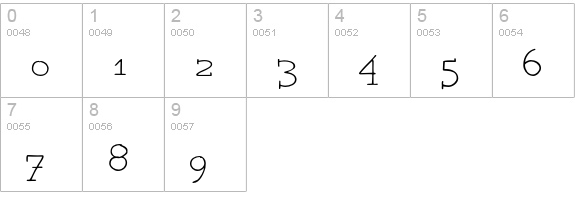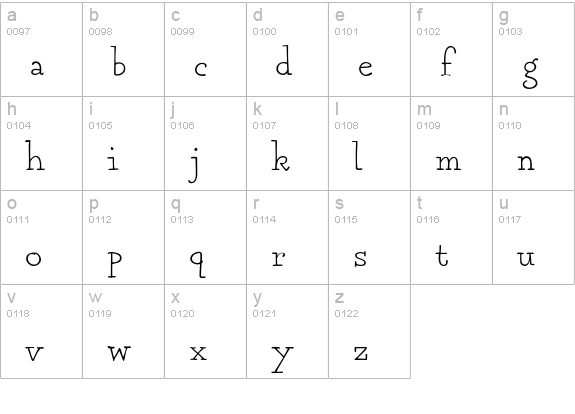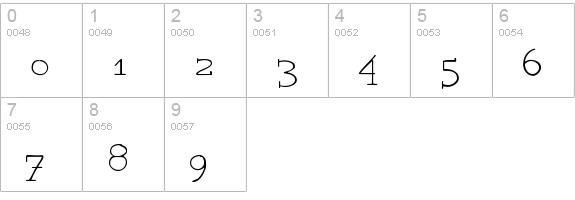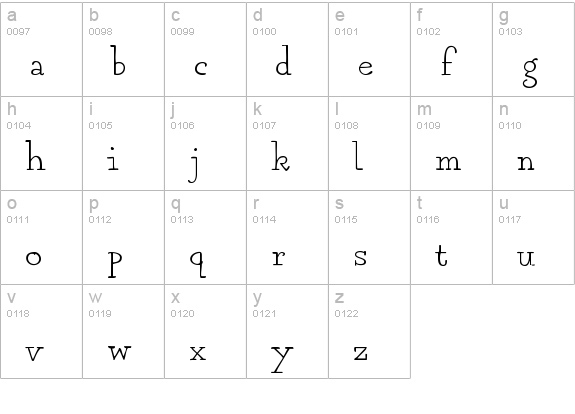
Grandma Font Details
Grandma font is a beautifully crafted typeface that exudes warmth and nostalgia, perfect for adding a touch of vintage charm to your designs. With its elegant curves and delicate serifs, Grandma font is versatile and timeless, making it suitable for a wide range of projects. Whether you're creating invitations, branding materials, or decorative elements, this font will add a touch of sophistication and elegance. Best of all, Grandma font is available for free download at FontsMarket.com. Embrace the classic beauty of Grandma font and elevate your designs with its timeless appeal.